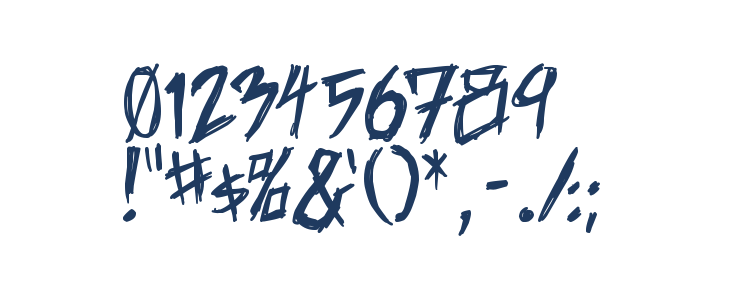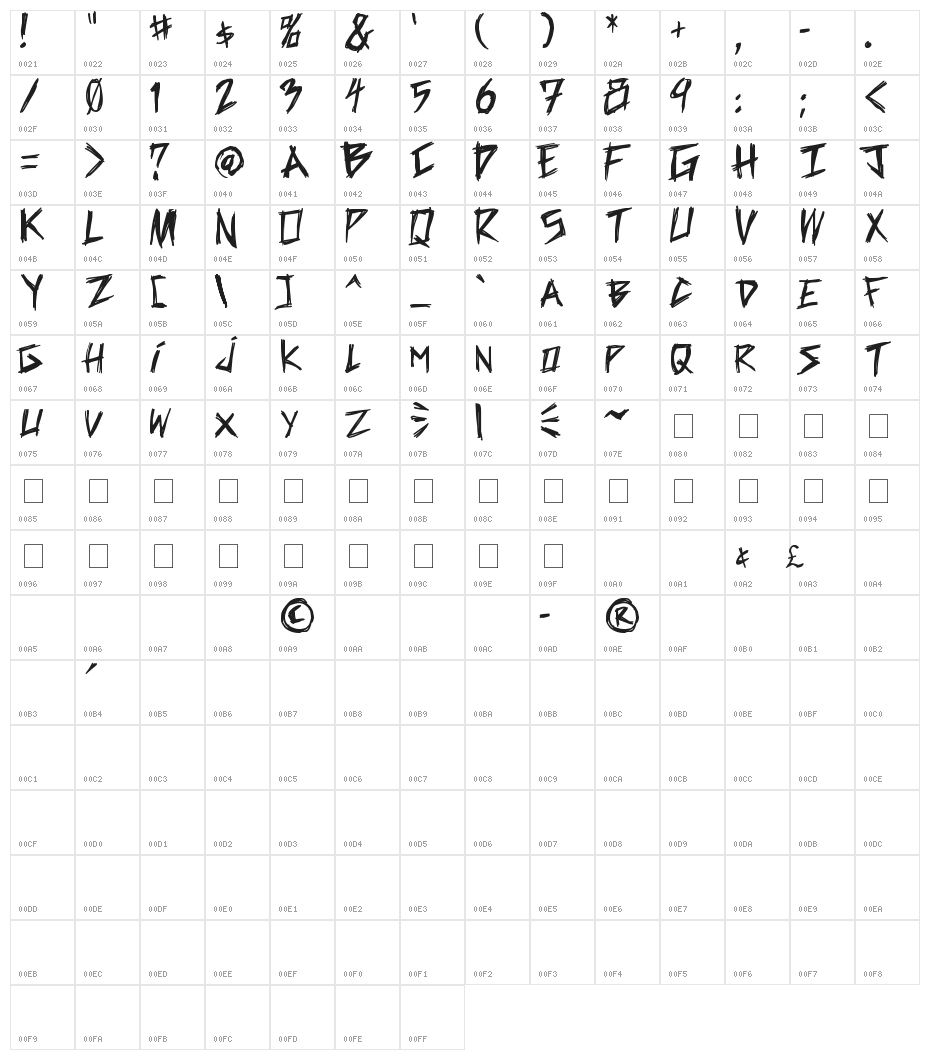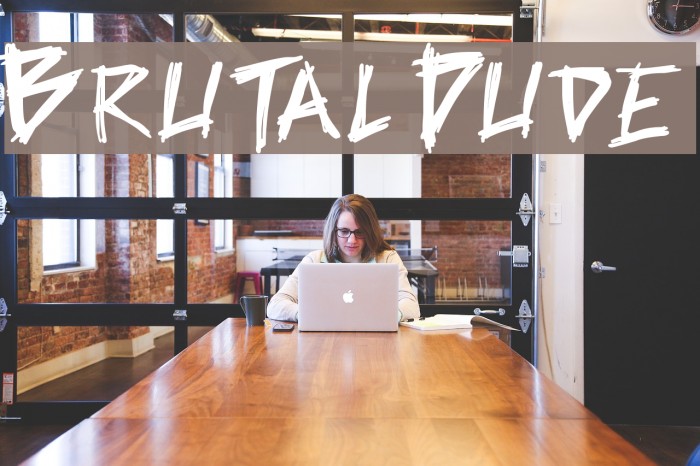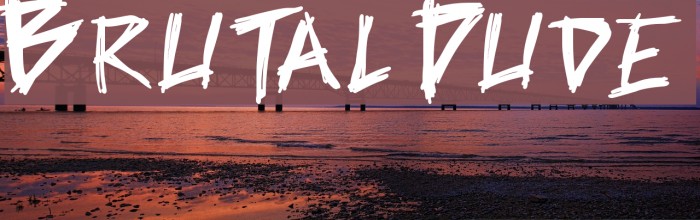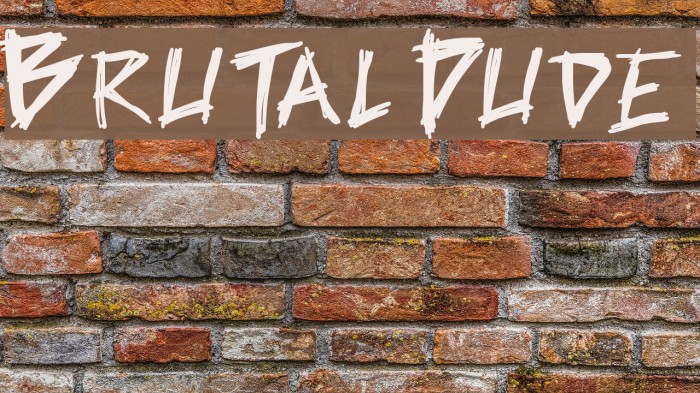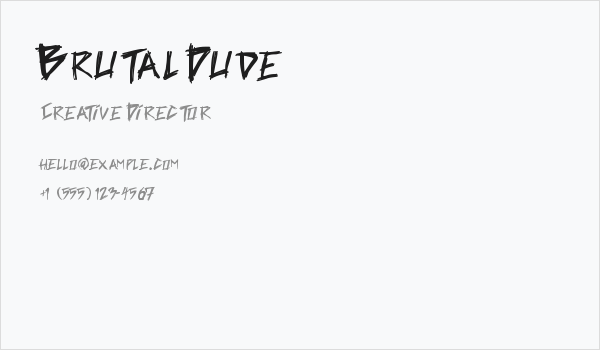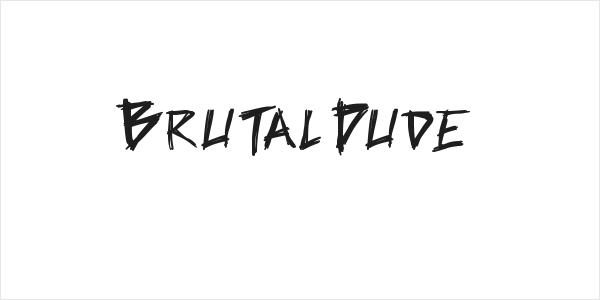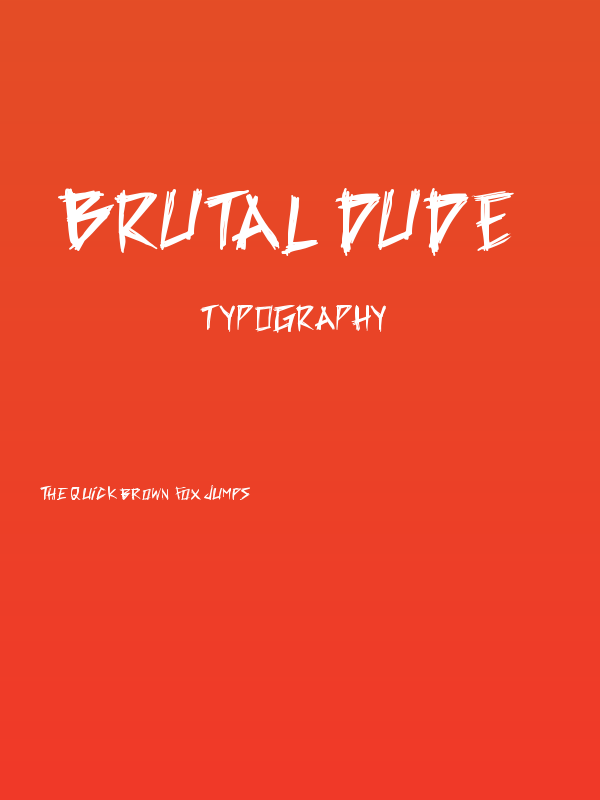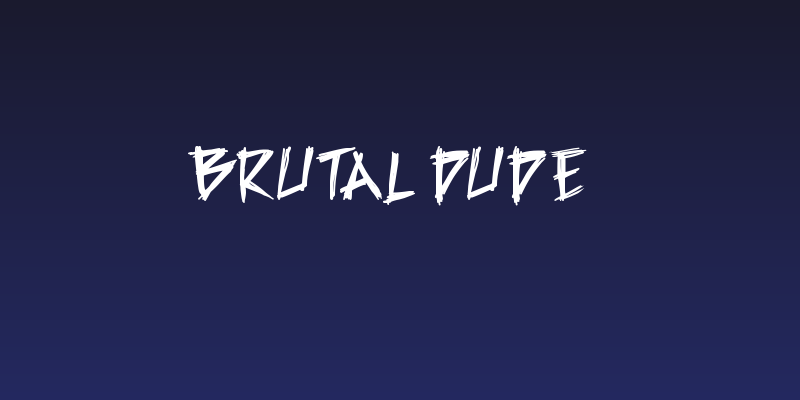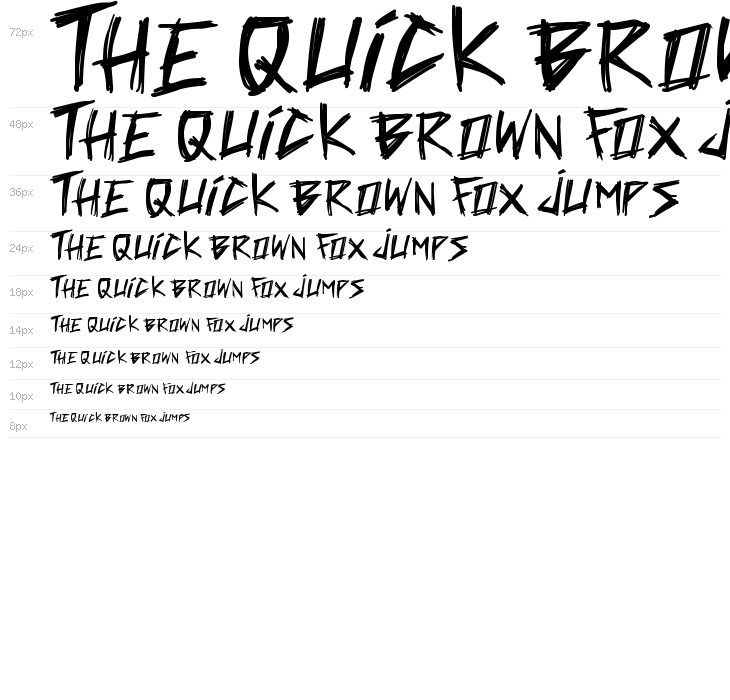
Brutal Dude Font
Brutal Dude Description
This font exudes a raw and edgy aesthetic, characterized by its jagged, hand-drawn appearance. The strokes are bold and irregular, giving it a rebellious and energetic feel. Each character seems to be crafted with a sense of urgency, as if sketched with a marker in a moment of creative frenzy. The uppercase and lowercase letters maintain a consistent style, with sharp angles and dynamic lines that suggest movement and intensity. The numbers and special characters follow suit, adding to the overall chaotic yet controlled vibe. This font is perfect for projects that require a bold statement and a touch of artistic flair.
| Overall Style | Modern, Edgy |
| Proposed Projects | Ideal for album covers, streetwear branding, skateboarding graphics, and rebellious-themed posters. |